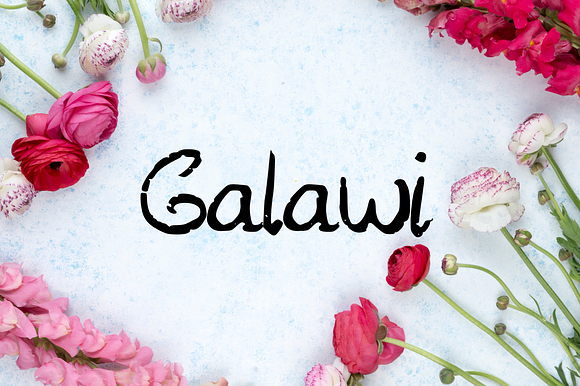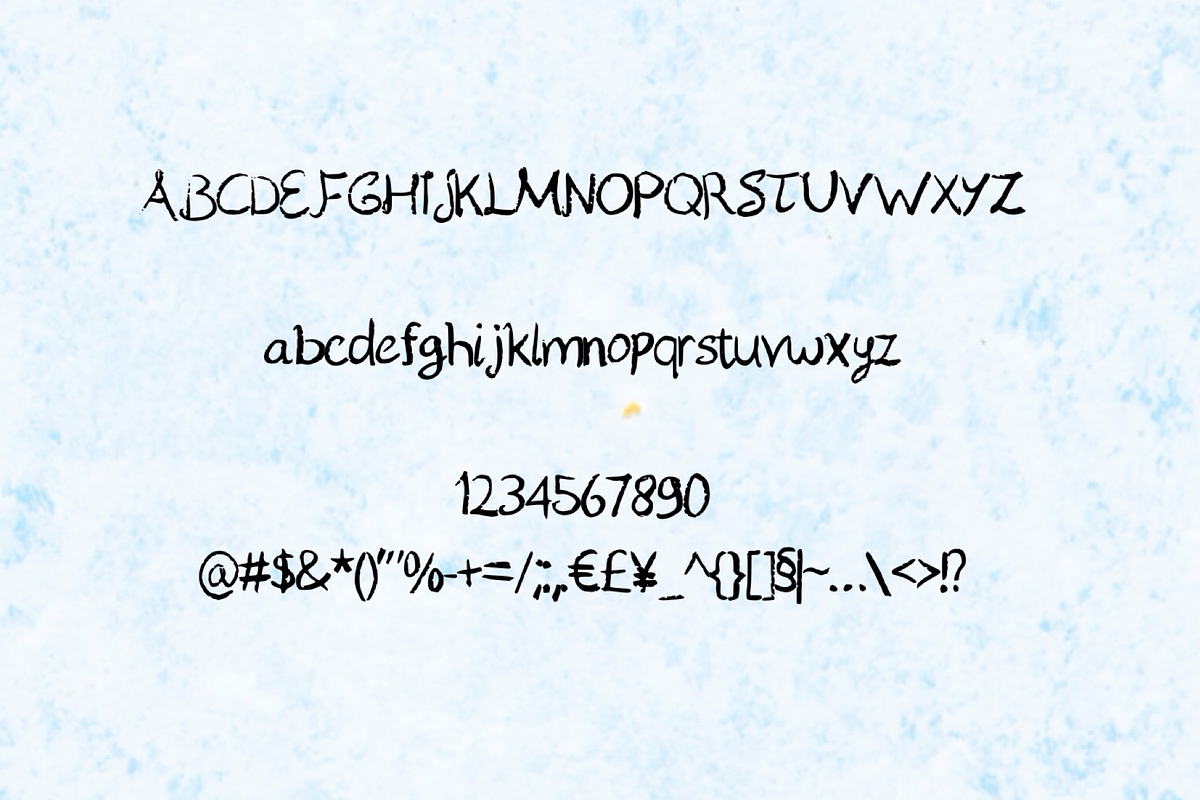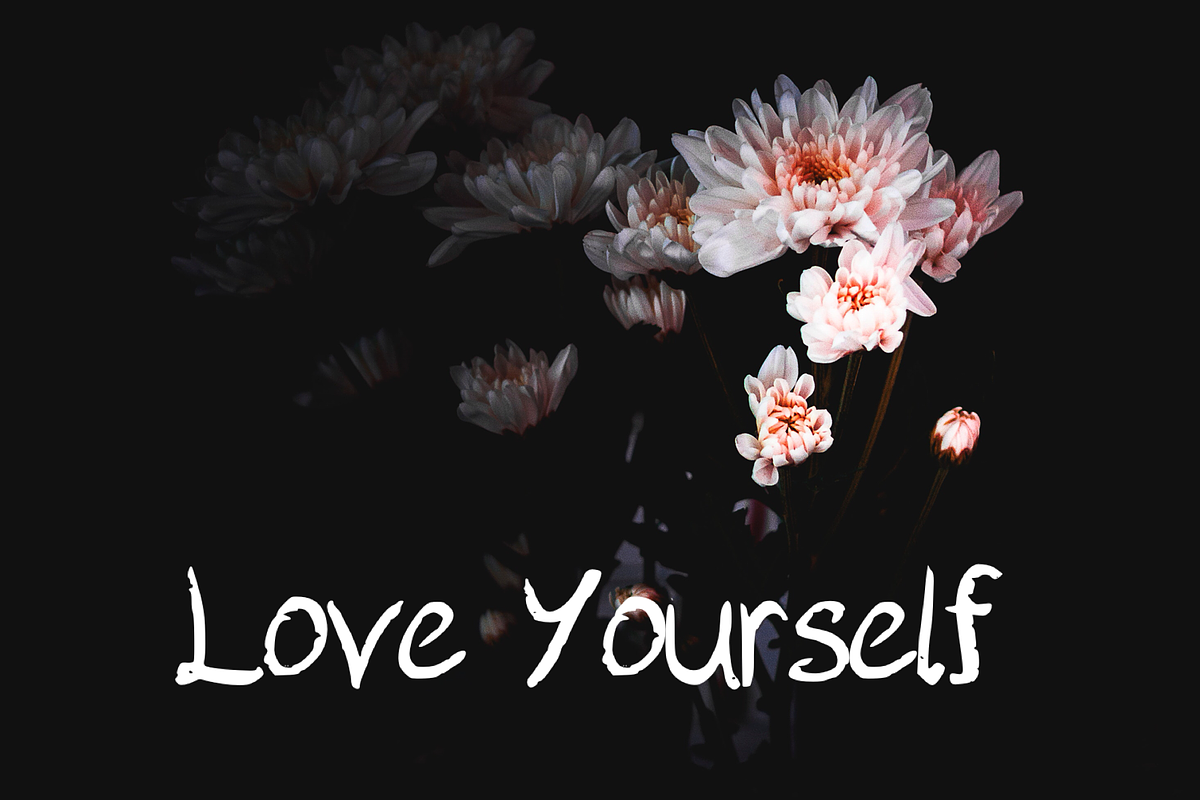
Galawi - Handwritten Script Font
A handwritten script font containing upper and lowercase characters, numerals and a large range of punctuation. International characters included!
Ideal for logos, handwritten quotes, product packaging, header, poster, merchandise, social media, greeting cards and many more.
Large range of Punctuation
Galawi - Handwritten Script Font by Mila Visuals fits naturally into Branding, posters, packaging, typography.